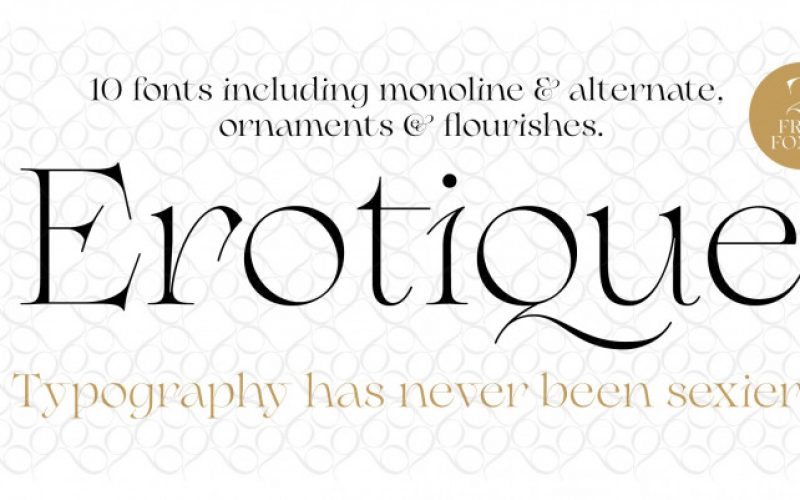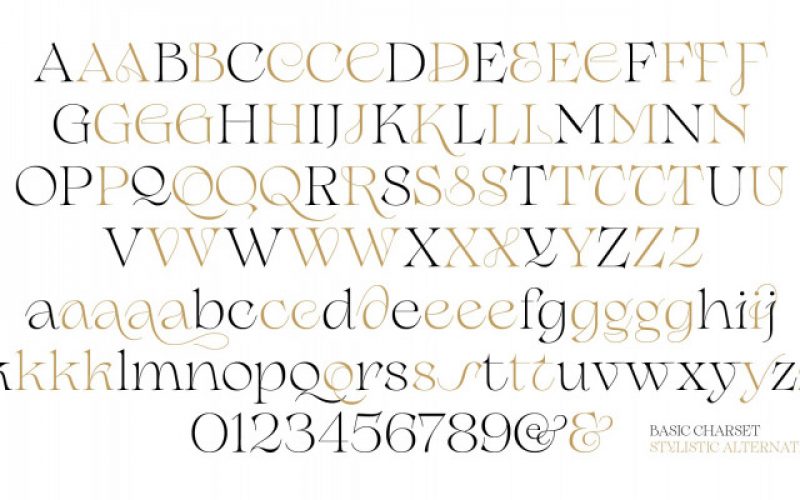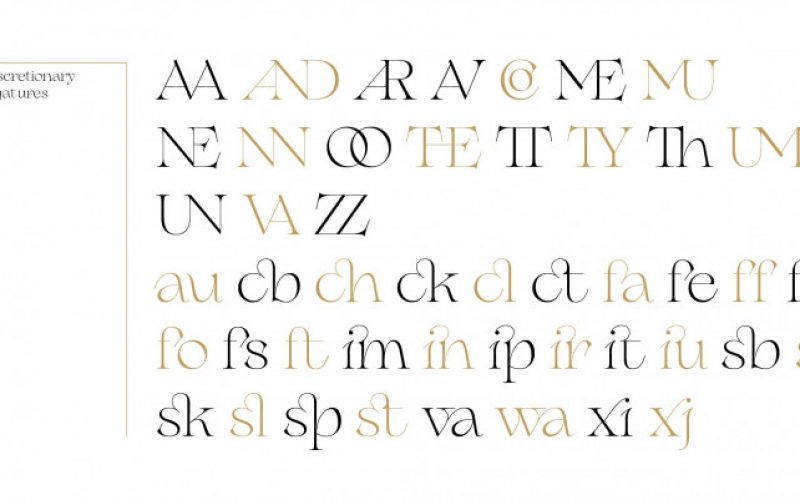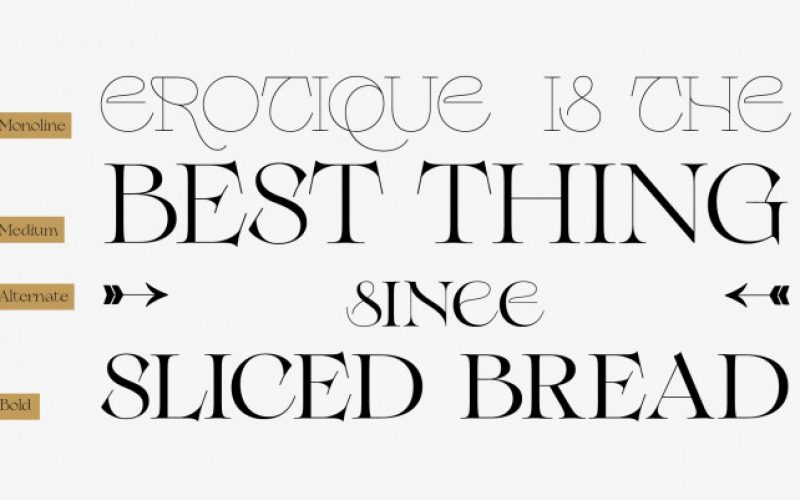
Erotique Serif Font
Designed by Cosimo Lorenzo Pancini and Mariachiara Fantini with the help of Solenn Bordeau, Erotique is an evolution of the original design by Zetafonts for Lovelace, that challenges its romantic curves with the glitchty & fluid aestethic of transmodern neo-brutalist typography. The seductive “evil serif” look of the Pheimester-like Oldstyle letter shapes is made edgier by the quirky connections and unexpected calligraphic twirls that marry digital distortions to traditional penmanship. Sensuous but sharp, Erotique speaks the language of teasing, and unrequited love, over-the-top and restrained like SHOW ALL